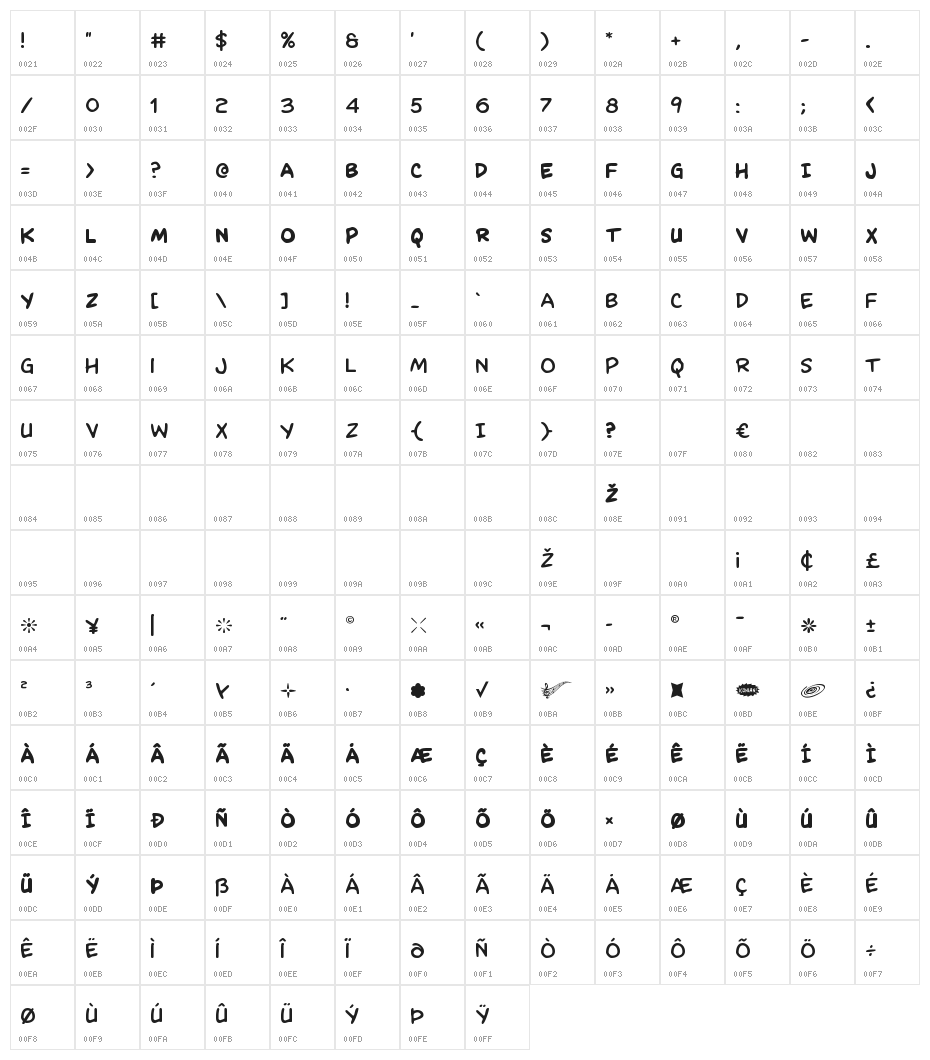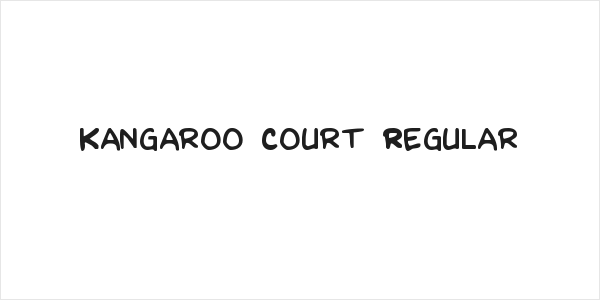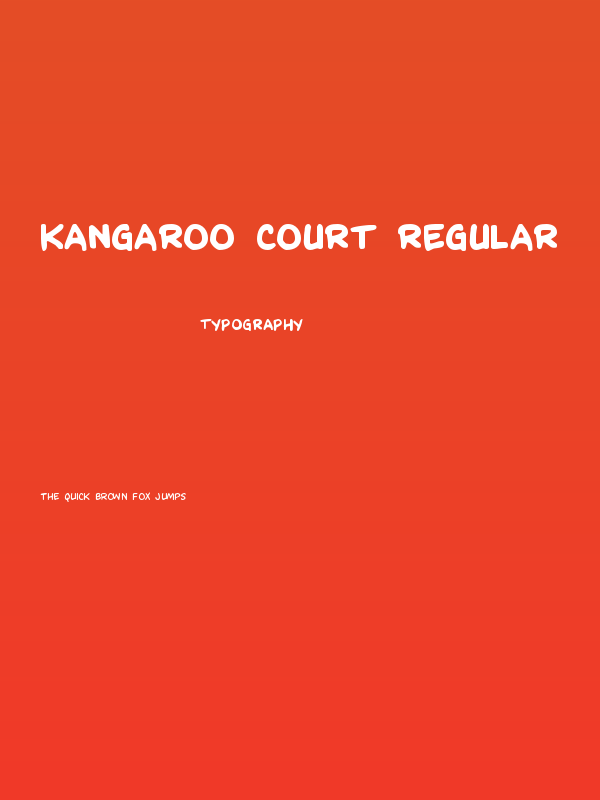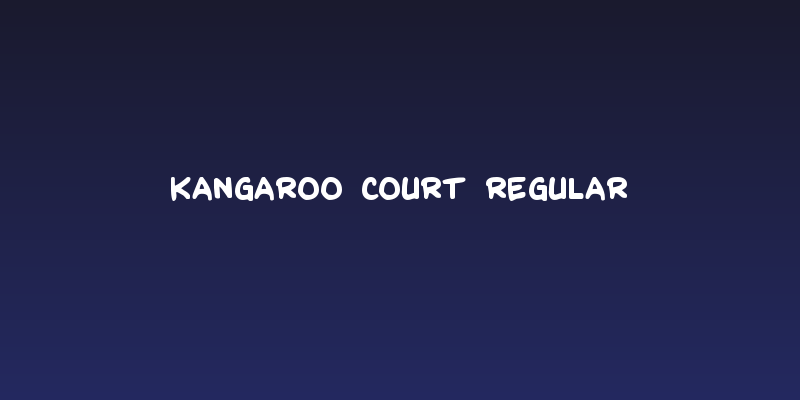
Kangaroo Court Regular Font
Kangaroo Court Regular Description
This playful and bold font features a handwritten style with a casual and friendly appearance. The characters are rounded and slightly irregular, giving it a whimsical and approachable feel. The uppercase and lowercase letters maintain a consistent style, with a slight slant that adds to its informal charm. The numbers and special characters are designed to match the overall aesthetic, making it versatile for various creative projects. Its unique style makes it stand out, perfect for designs that require a touch of personality and fun.
| Overall Style | Playful, Casual |
| Proposed Projects | Ideal for children's books, playful branding, greeting cards, and informal invitations. |